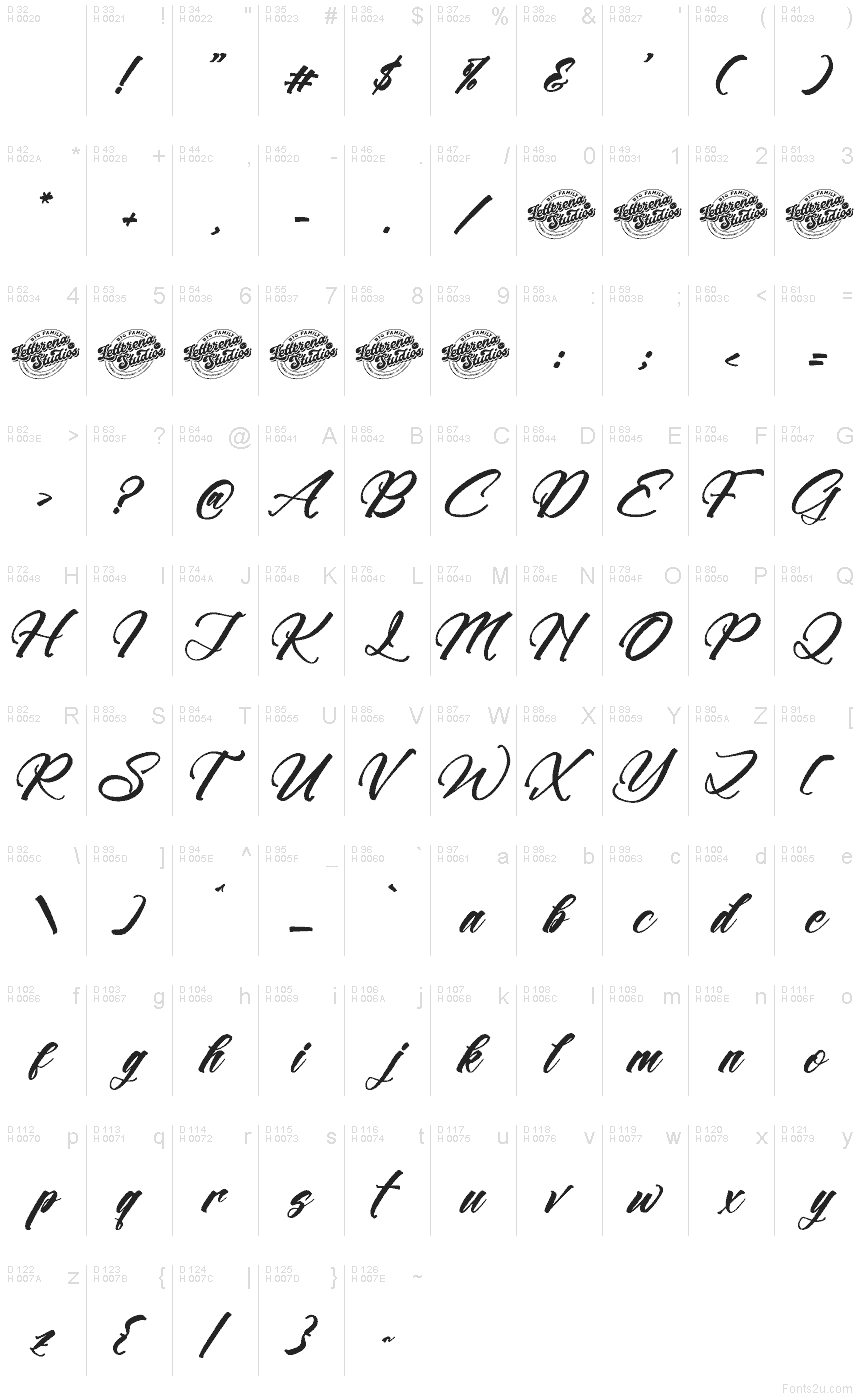
Westron Rotterika DEMO VERSION Italic
Westron Rotterika Italic font by Letterena Studios is an elegant calligraphy font with a flowing script style. Its ornamental nature creates sophisticated aesthetics influenced by cursive writing. The font maintains a modern look with a classic flair that makes it look professional whatever the project or medium.